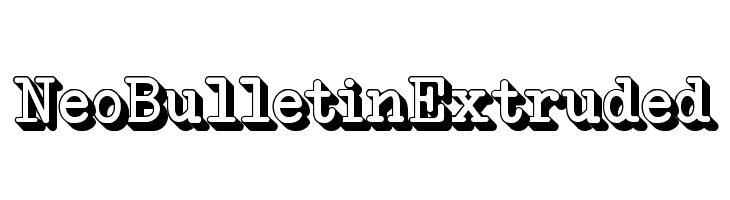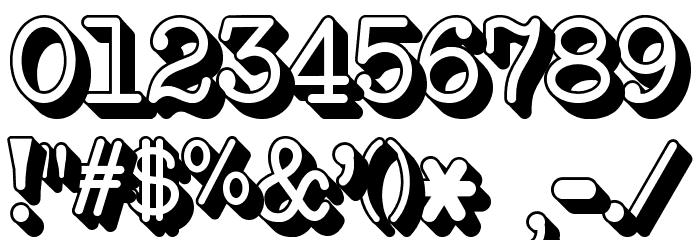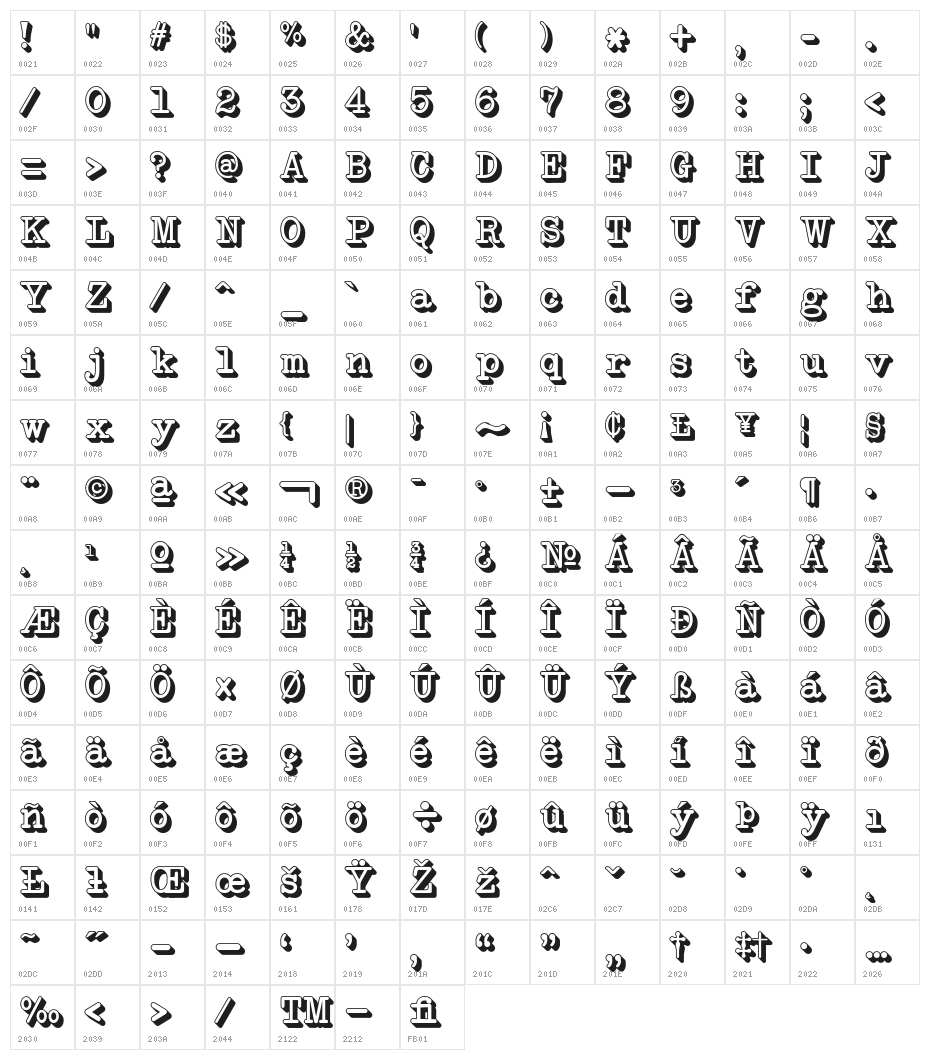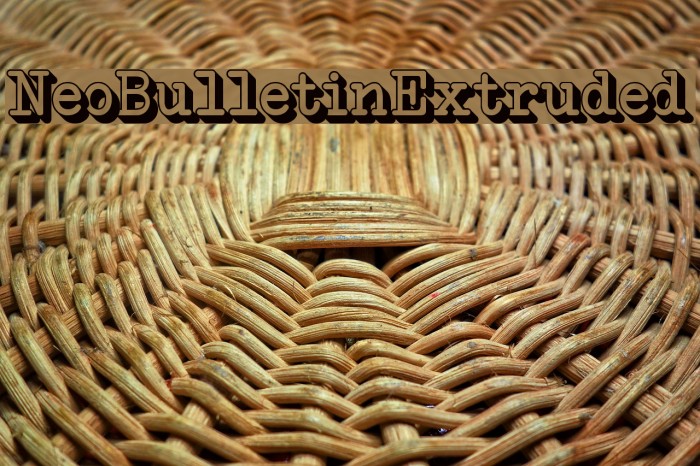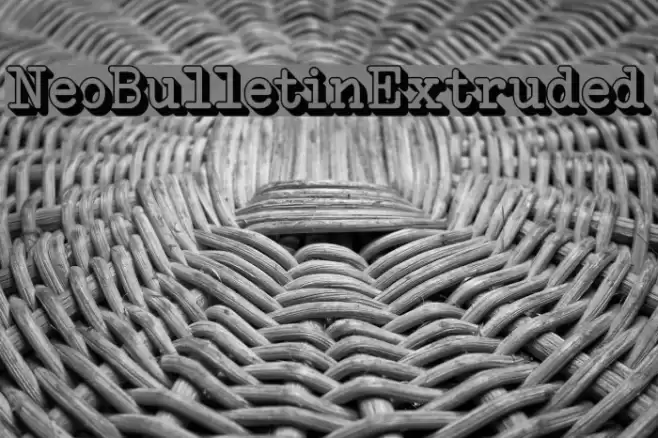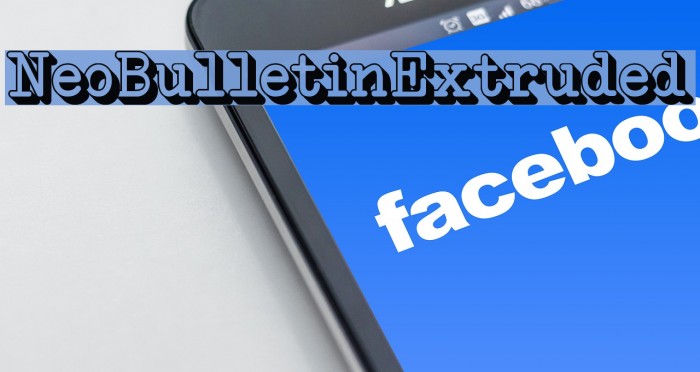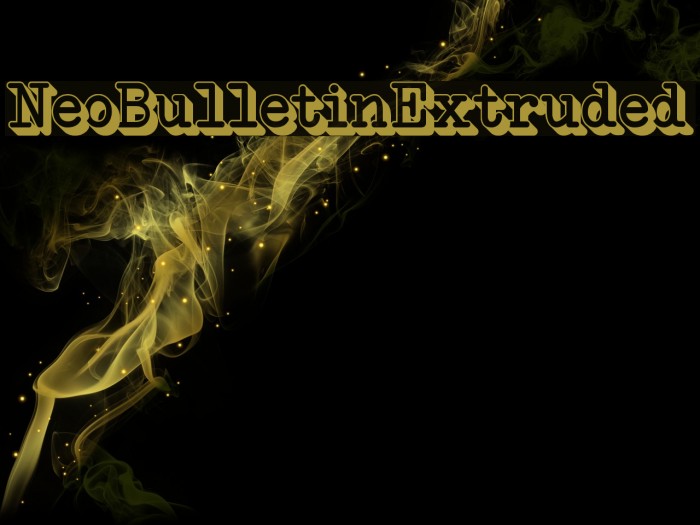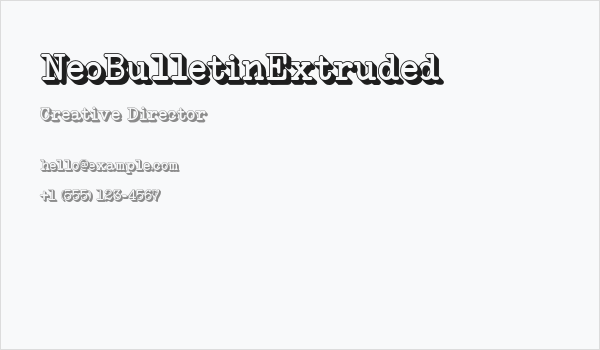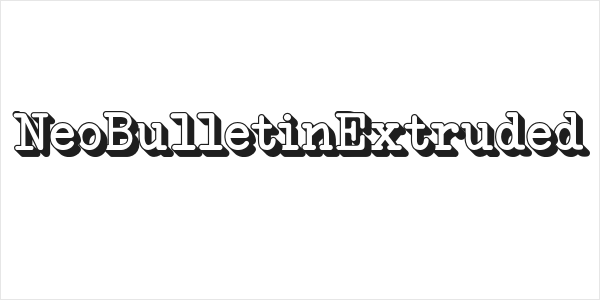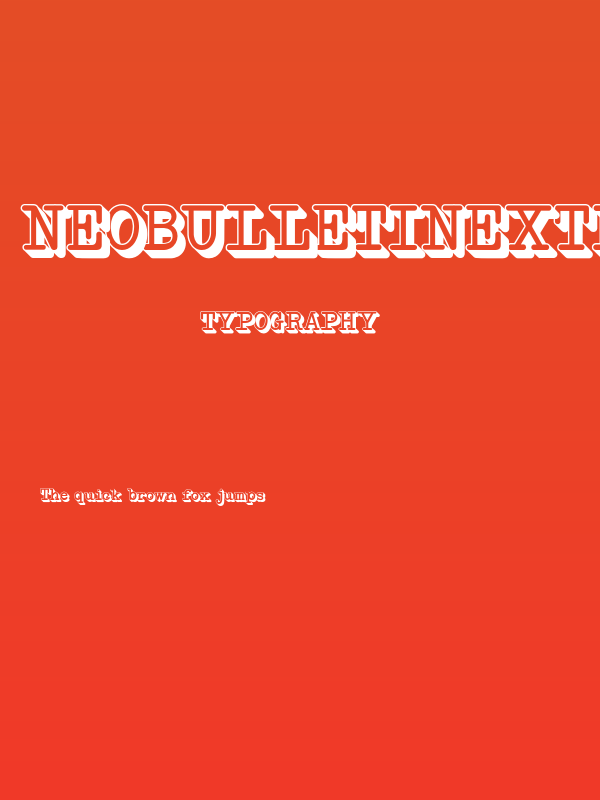
NeoBulletinExtruded Font
NeoBulletinExtruded Description
This font features a bold, three-dimensional extruded style that gives it a striking and impactful appearance. The characters are outlined with a thick black shadow, creating a sense of depth and making each letter stand out prominently. The serif design adds a touch of classic elegance, while the overall boldness and shadow effect lend a modern and dynamic feel. The uppercase and lowercase letters maintain a consistent style, with numerals and special characters following the same design principles. This font is ideal for creating eye-catching headlines, posters, and logos where a strong visual impact is desired.
| Proposed Projects | Ideal for posters, headlines, logos, and any design requiring a bold, impactful typeface. |